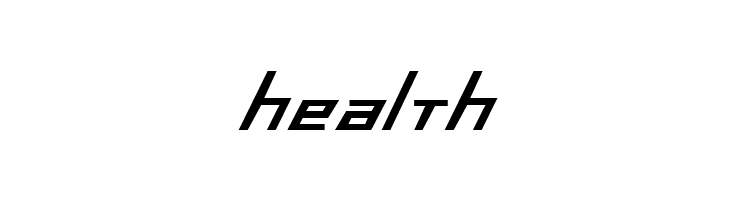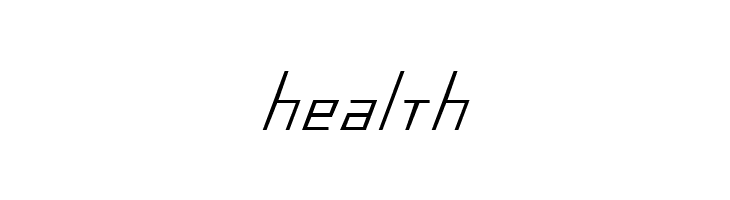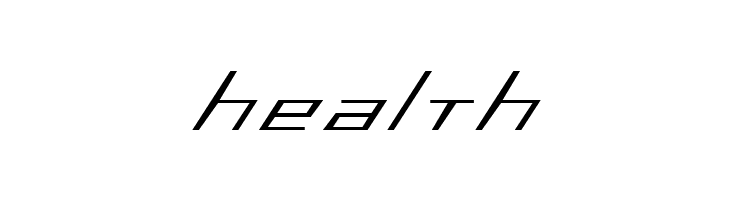
( Fonts by Neale Davidson - www.pixelsagas.com )
A sleek, oblique font with a modern and dynamic style.
A bold, angular font with a dynamic slant and strong geometric influence.
A modern sans-serif font with clean lines and balanced spacing.
A bold, modern sans-serif font with clean lines and excellent readability.
A bold, italicized modern sans-serif font with sleek, dynamic characters.
A bold, italic sans-serif font with strong, dynamic strokes.
A sleek, modern typeface with clean lines and a minimalistic design.
An elegant, extra light italic font with sleek, elongated characters.
A sleek, italicized sans-serif font with smooth curves and modern style.
A modern, light sans-serif font with clean lines and balanced proportions.
A sleek, light, and italicized font with a modern and minimalist style.
A modern sans-serif font with a clean, balanced, and professional appearance.
A modern, medium-weight, italic sans-serif font with elegant slant and balanced spacing.